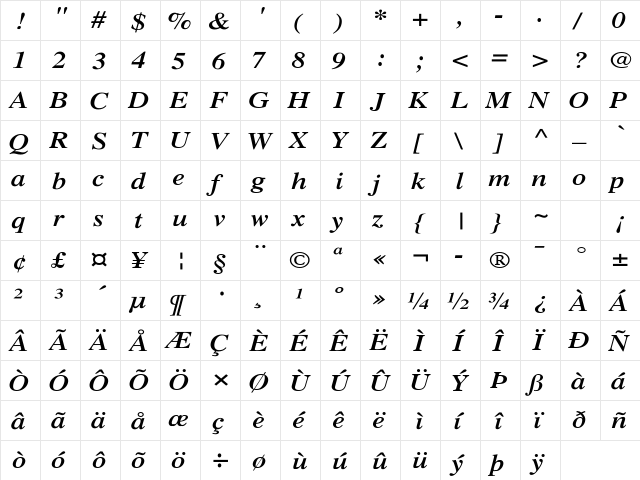
Xerox Serif Wide Bold Italic
Design Context for Xerox Serif Wide Typeface
Xerox Serif Wide brings classic typographic sensibility to the table — its serifs and measured letterforms reflect centuries of print heritage. Its italic angle brings a sense of urgency and motion to the letterforms. Its bold stroke weight gives it real presence on the page.
Pro Tip: Set Xerox Serif Wide with slightly loose tracking in headlines to let each letterform's detail read clearly at display sizes.